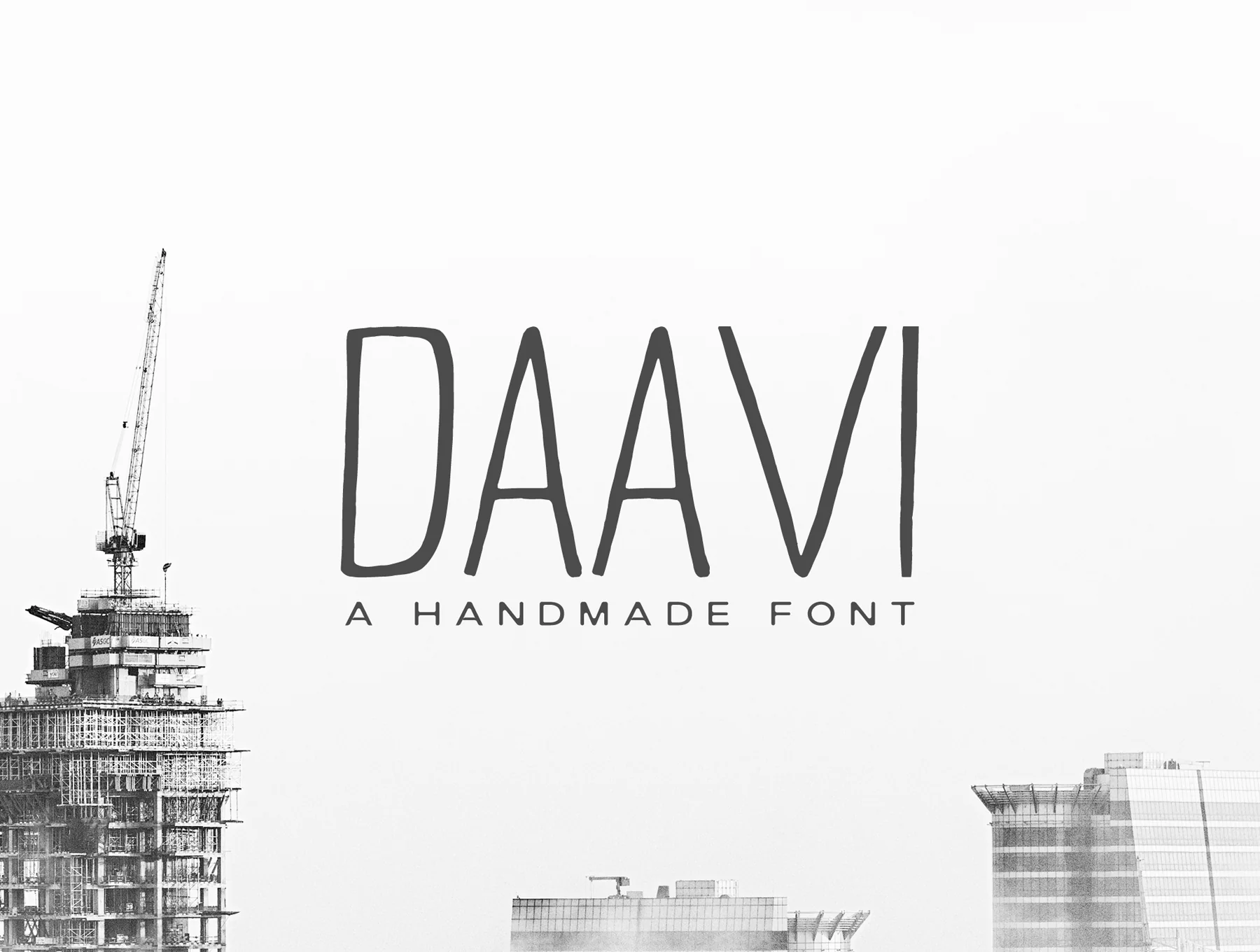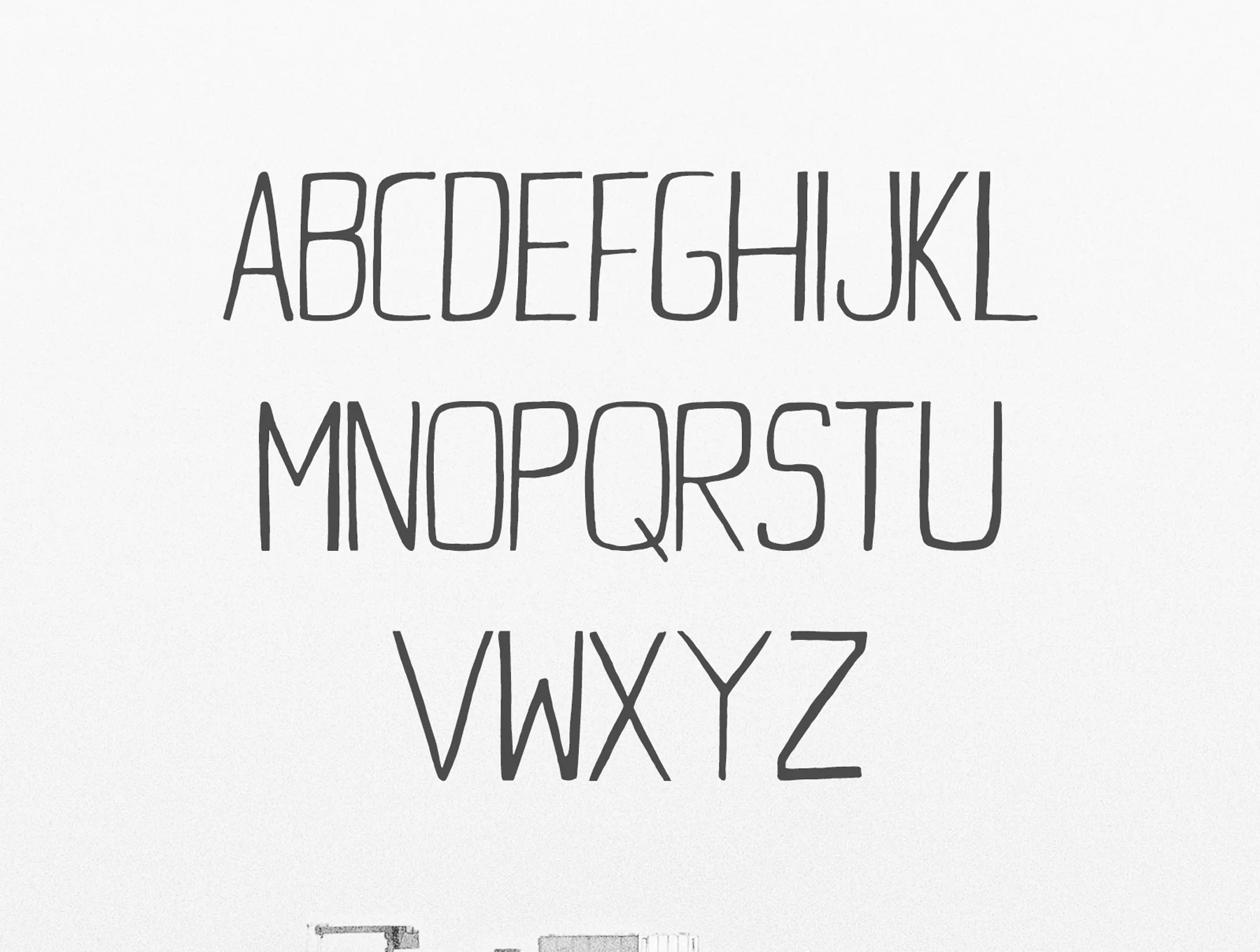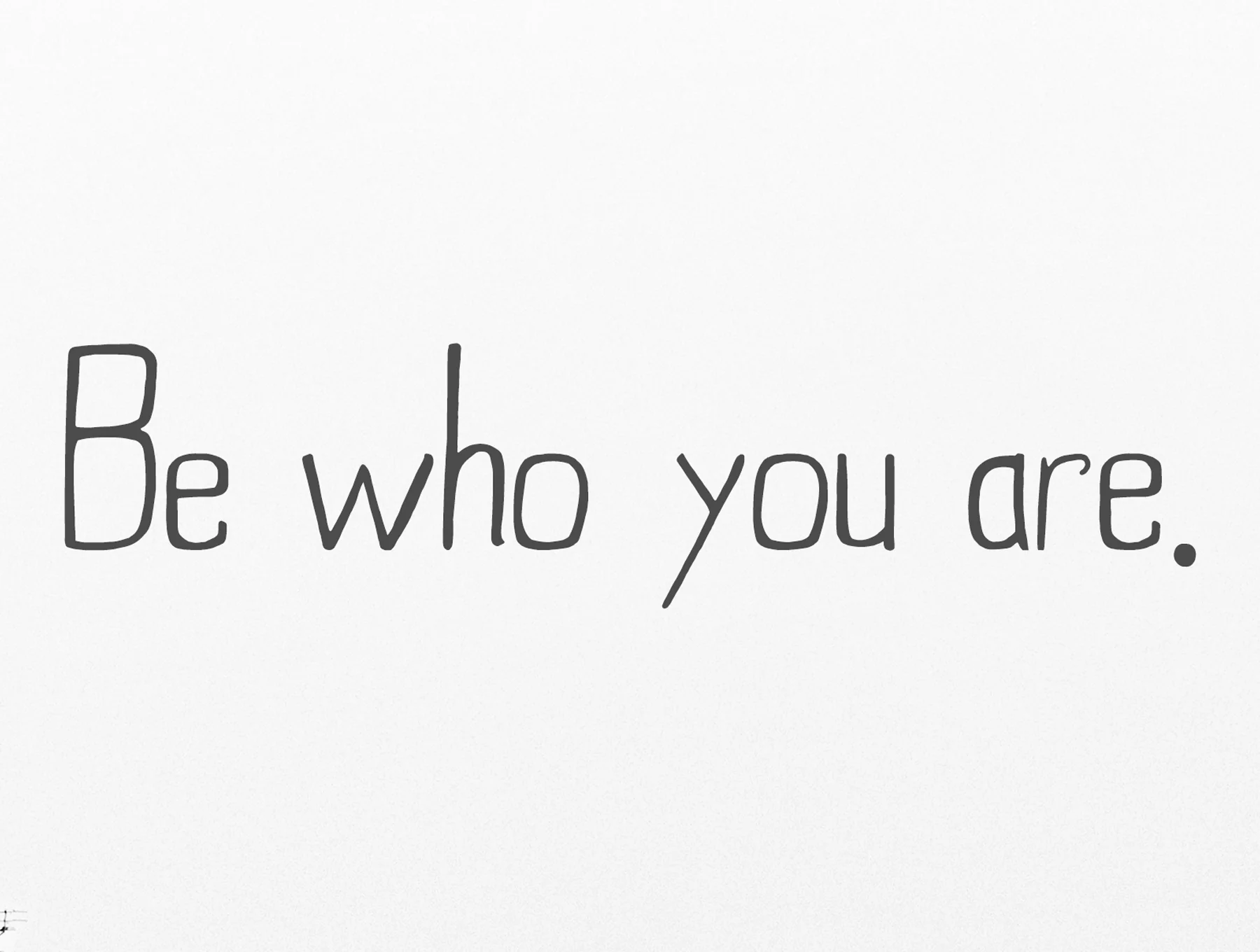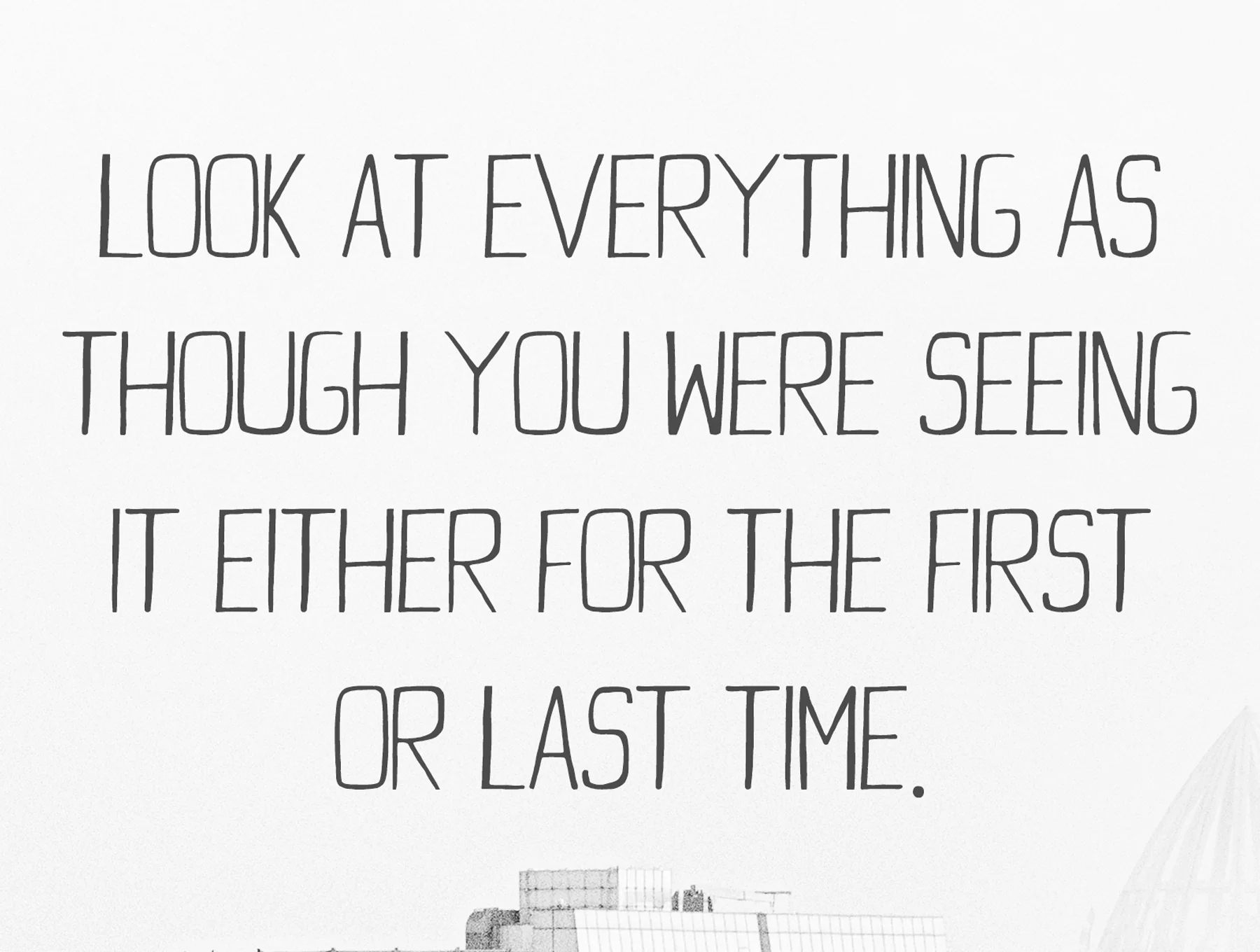
Daavi Sans Serif
Clean sans-serif typeface
Standard regular style
Clean sans-serif typeface
Standard regular style
Daavi Handmade Sans Serif Font is a modern handcrafted typeface with a gentle, refined feel and premium quality. It suits greeting cards, branding, wedding postcards, business cards, quotes, posters, small businesses, book covers, stationery, marketing designs, magazines, and more.